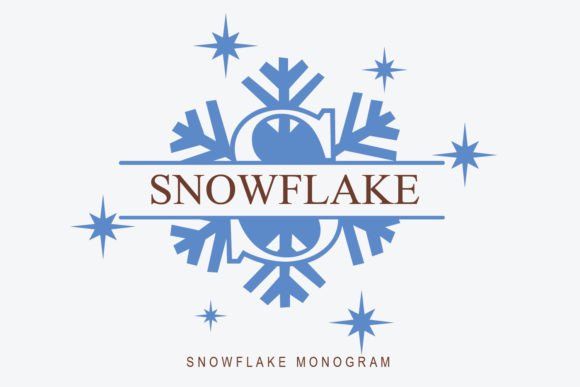
Snowflake Monogram Font: A Charming Decorative Font for Winter Holiday Designs
The Snowflake Monogram Font is a simple yet elegant decorative font that features charming ornaments, making it perfect for creating stunning winter holiday designs. With its genuine feel and versatility, this font is ideal for crafting beautiful Christmas designs, invitations, stationary art, social media posts, greeting cards, and more.
What is Snowflake Monogram Font?
Snowflake Monogram Font is a decorative font designed to add a touch of winter wonderland charm to your designs. Its unique and intricate ornaments make it stand out from other fonts, giving your creations a personalized and festive look. Whether you’re a designer, crafty DIY enthusiast, or social media influencer, this font is sure to captivate your audience and leave a lasting impression.
Features of Snowflake Monogram Font
- Charming Ornaments: The Snowflake Monogram Font features beautiful, intricate ornaments that add a touch of elegance and sophistication to your designs.
- Genuine Feel: This font has a genuine, hand-crafted feel that makes it perfect for creating unique and personalized designs.
- Versatile: The Snowflake Monogram Font is versatile and can be used for a wide range of design projects, from Christmas designs and invitations to social media posts and greeting cards.
Uses of Snowflake Monogram Font
The Snowflake Monogram Font is perfect for a variety of design projects, including:
- Christmas Designs: Create stunning Christmas designs, such as holiday cards, gift tags, and decorations, with this beautiful font.
- Winter Holiday Invitations: Design beautiful and elegant winter holiday invitations that will impress your friends and family.
- Stationary Art: Create gorgeous stationary art, such as journals, planners, and stickers, with the Snowflake Monogram Font.
- Social Media Posts: Make your social media posts stand out with this charming font, perfect for creating eye-catching graphics and quotes.
- Greeting Cards: Design cute and personalized greeting cards for special occasions, such as Christmas, New Year’s Eve, and Valentine’s Day.
- Shirts and Crafts: Use the Snowflake Monogram Font to create custom shirts, crafts, and DIY projects that make perfect gifts or decorations.
- Farmhouse Decor: Add a touch of rustic charm to your farmhouse decor with this beautiful font, perfect for creating signs, banners, and other decorative items.
- SVG Designs: Use the Snowflake Monogram Font to create stunning SVG designs, perfect for cutting machines and other craft projects.
Benefits of Using Snowflake Monogram Font
Using the Snowflake Monogram Font offers several benefits, including:
- Unique Designs: This font allows you to create unique and personalized designs that stand out from the crowd.
- Time-Saving: With the Snowflake Monogram Font, you can create stunning designs quickly and easily, saving you time and effort.
- Versatility: This font is versatile and can be used for a wide range of design projects, making it a great addition to your font collection.
- High-Quality: The Snowflake Monogram Font is high-quality and designed to produce crisp, clear text and graphics.
Tips for Using Snowflake Monogram Font
Here are some tips for using the Snowflake Monogram Font:
- Experiment with Colors: Try out different colors and color combinations to find the perfect look for your design.
- Mix and Match: Mix and match the Snowflake Monogram Font with other fonts and graphics to create unique and interesting designs.
- Pay Attention to Details: Pay attention to details, such as font size and spacing, to ensure your design looks professional and polished.
- Have Fun: Most importantly, have fun and be creative with the Snowflake Monogram Font!
The Snowflake Monogram Font is a charming and versatile decorative font that’s perfect for creating stunning winter holiday designs. With its genuine feel, charming ornaments, and ease of use, this font is ideal for designers, crafty DIY enthusiasts, and social media influencers. Whether you’re creating Christmas designs, invitations, stationary art, social media posts, or greeting cards, the Snowflake Monogram Font is sure to captivate your audience and leave a lasting impression.